Best fonts for men’s jacket branding and apparel labels can help a fashion brand look more premium, confident, and memorable. In men’s fashion, especially jackets, typography is not only used for logos. It also appears on woven labels, hang tags, packaging, lookbooks, website banners, social media content, and product catalogs.
A jacket is often seen as a statement piece. Whether the style is streetwear, outdoor, luxury, vintage, or minimalist, the font you choose can shape how customers feel about the brand. A strong typeface can make a jacket label look exclusive, while a clean serif or modern display font can make the product feel more refined and trustworthy.
Why Fonts Matter in Men’s Jacket Branding
Men’s jacket branding usually needs to communicate strength, quality, and personality. Customers often notice small design details before making a purchase. A well-designed label can make the jacket feel more valuable, even before someone checks the fabric or stitching.
Typography also helps create consistency. When the same font style appears across the label, tag, box, website, and social media, the brand feels more professional. This is especially important for fashion brands that want to build recognition and trust.
For a consideration-stage audience, font choice can become part of the buying decision. Customers may compare several brands, and the one with stronger visual branding can feel more polished and worth the price.
What Makes a Font Suitable for Apparel Labels?
A good apparel label font should be readable, stylish, and flexible. It needs to work in small sizes because jacket labels, care tags, and woven patches often have limited space. At the same time, the font should still have enough character to represent the brand identity.
For men’s jackets, the best fonts usually fall into a few categories: elegant serif fonts, bold display fonts, vintage-inspired typefaces, and modern editorial fonts. Each category gives a different impression.
Serif Fonts for Premium Jacket Labels
Serif fonts are a great choice for brands that want to look elegant, classic, or high-end. They work well for leather jackets, wool coats, formal outerwear, and luxury fashion labels. A serif font can make a brand feel established and refined. It is also suitable for hang tags, product descriptions, and editorial-style lookbooks.
Bold Fonts for Streetwear and Urban Jackets
Streetwear jacket brands often need fonts that feel strong, loud, and confident. A bold display font can help the logo stand out on patches, labels, stickers, and promotional graphics. This style works well for bomber jackets, denim jackets, varsity jackets, and oversized outerwear collections.
Editorial Fonts for Modern Fashion Branding
Editorial fonts are ideal for brands that want a clean and fashionable look. They can be used in catalogs, campaign visuals, lookbooks, and website headlines. This type of font is usually stylish without feeling too decorative.
Font Recommendations for Men’s Jacket Branding
1. Beatrice
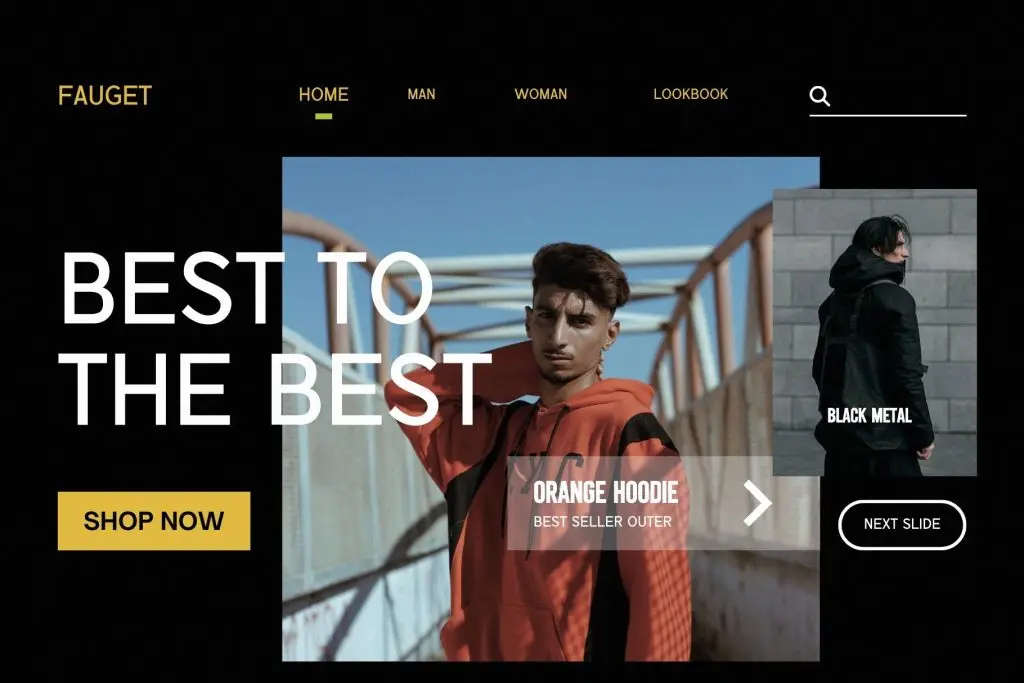
2. Chimor
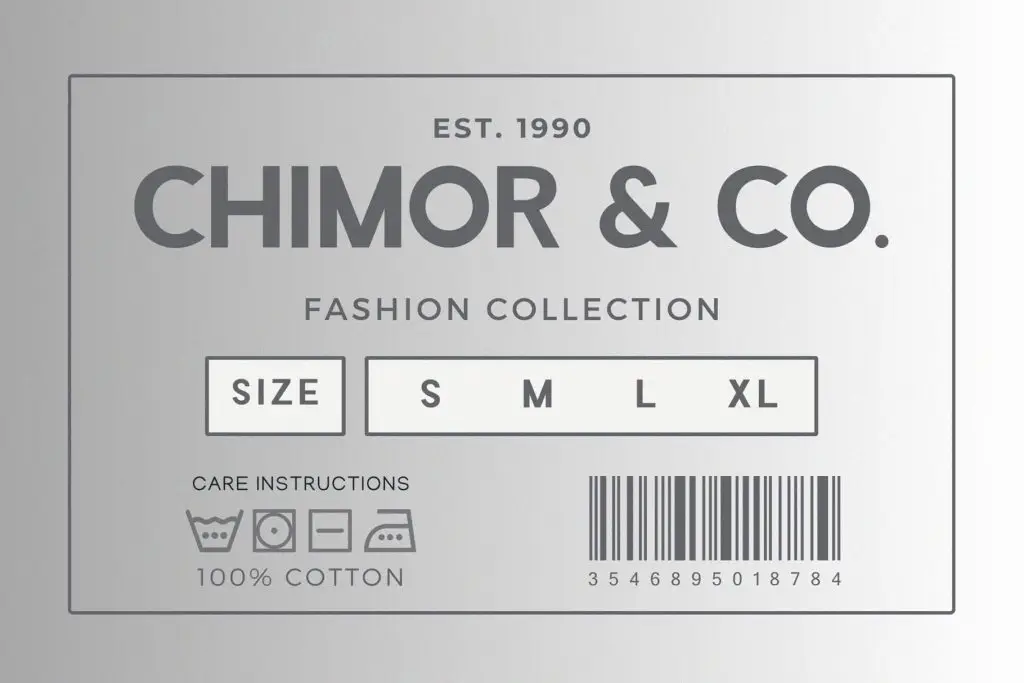
3. Fishera
4. Signer
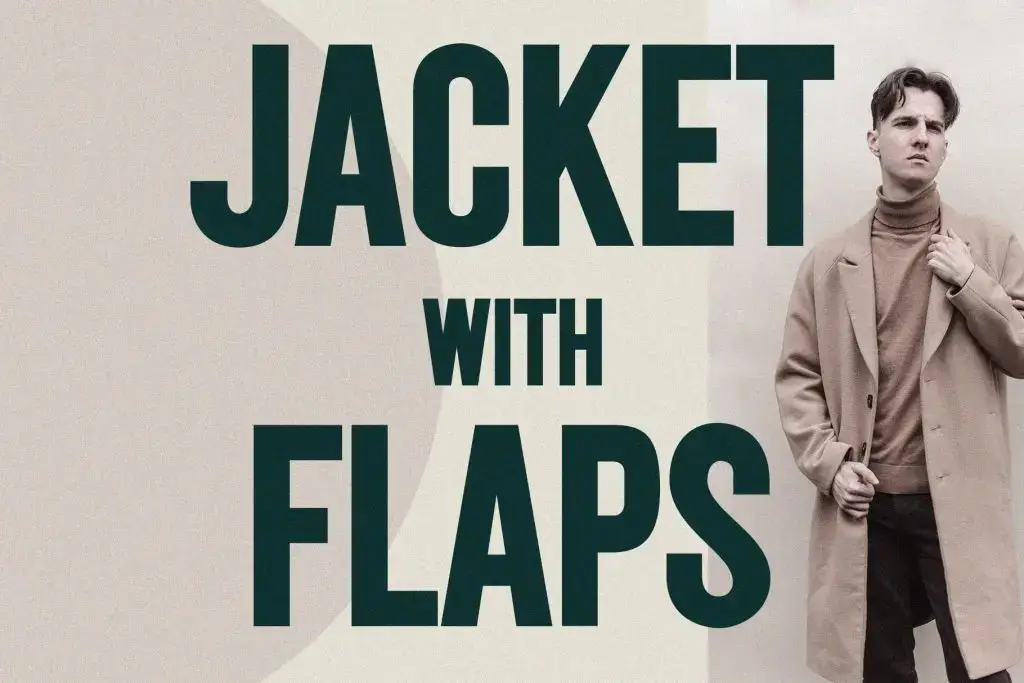
5. Quenko
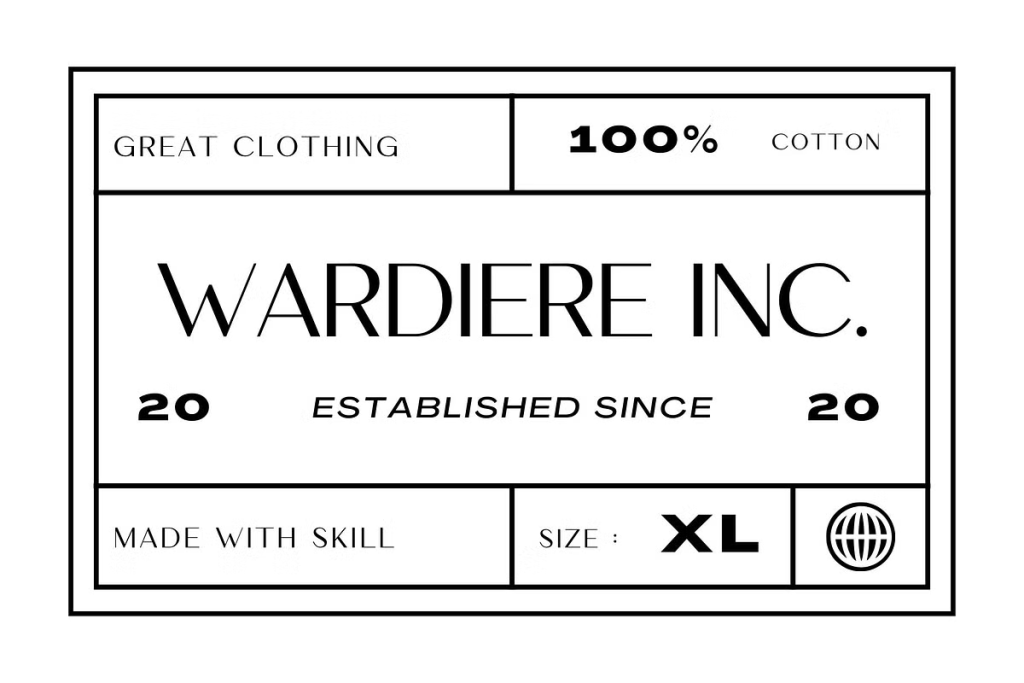
How to Use Fonts on Jacket Labels and Tags
Choosing the font is only the first step. You also need to apply it correctly across your brand materials. For labels, avoid using too many font styles in one small space. One main font for the brand name and one supporting font for details are usually enough.
Make sure the font remains clear when printed or woven. Some decorative fonts may look good on screen but lose detail on fabric labels. Before final production, test the font on different materials such as cotton labels, leather patches, paper hang tags, and box packaging.
Keep the Brand Name Easy to Read
Your jacket label should be stylish, but the brand name must still be clear. If customers cannot read the name easily, it will be harder for them to remember or search for the brand later.
Match the Font with the Jacket Style
A luxury leather jacket needs a different font mood from a sporty windbreaker or streetwear bomber. The font should support the product personality, not fight against it.
Use Typography Consistently
Use the same font family or visual style across your logo, label, catalog, website, and social media content. Consistency makes the brand look more established and helps customers recognize it faster.
Final Thoughts
The right font can make men’s jacket branding feel stronger, more professional, and more desirable. A good typeface supports the story behind the product, from the label inside the jacket to the hang tag customers see before buying.
Fonts like Beatrice, Chimor, Fishera, Junger, and Quenko can help fashion brands create labels and apparel visuals with a stronger identity. Whether your brand is premium, rugged, modern, or streetwear-inspired, typography can make the final design feel more complete.